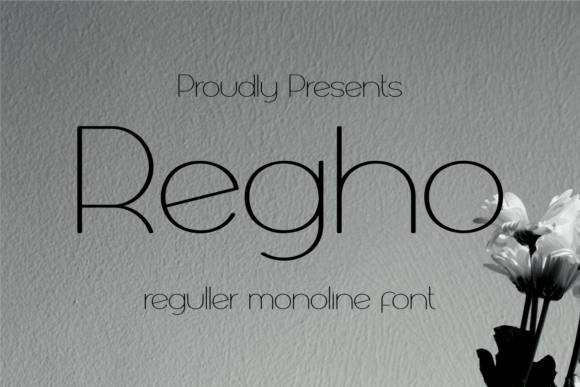
Embark on a culinary adventure with Regho Font, the ultimate font companion for food bloggers seeking to captivate their audience. This sans serif masterpiece, crafted by Monoletter, embodies elegance and functionality, seamlessly blending thin curves and a familiar, comforting aesthetic.
Regho's essence lies in its versatility, effortlessly adapting to various writing endeavors. Whether you're crafting daily activity notes, immersing yourself in the world of magazines and newspapers, or composing product descriptions that demand extensive text, Regho stands as your steadfast ally.
Indulge in the sensory delight that Regho brings to your food blog. Its easy-to-read nature invites readers to savor every word, immersing them in a gastronomic journey like no other. Let Regho's graceful lines dance across your blog, enhancing the visual appeal of your culinary creations and enticing readers to embark on a mouthwatering adventure.
Elevate your blog's aesthetic with Regho, the font that harmonizes sophistication and practicality. Its delicate curves and soft edges evoke a sense of warmth and familiarity, inviting readers to linger longer on your blog, savoring each delectable morsel of information you share.
Regho's unwavering legibility ensures that your culinary insights shine through, allowing readers to effortlessly absorb your culinary wisdom. Its consistent letterforms and generous spacing create a visually harmonious reading experience, guiding readers through your culinary masterpieces with ease.
With Regho as your font partner, your food blog transforms into a captivating culinary haven. Its timeless design complements any food photography, enhancing the visual appeal of your dishes and creating a cohesive aesthetic that leaves a lasting impression on your audience.